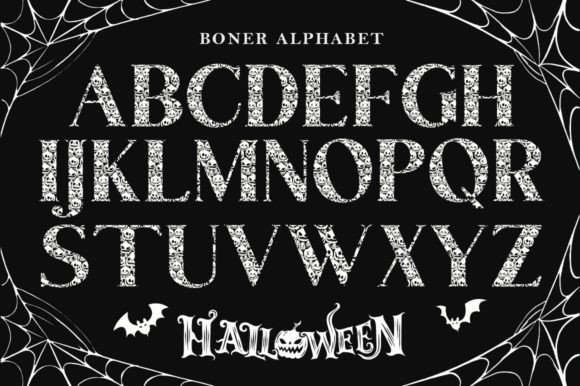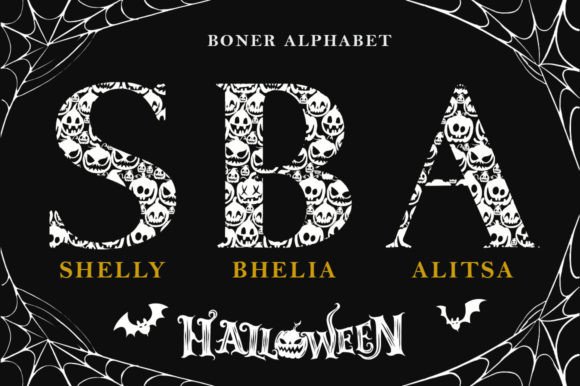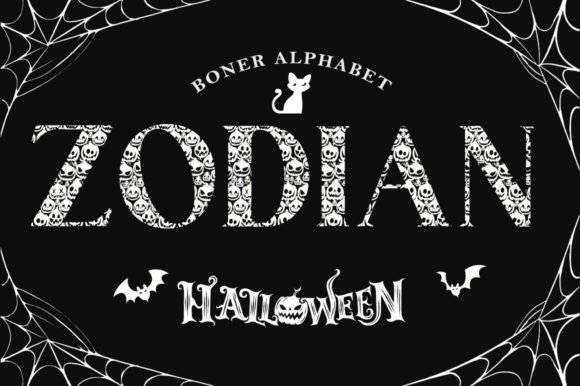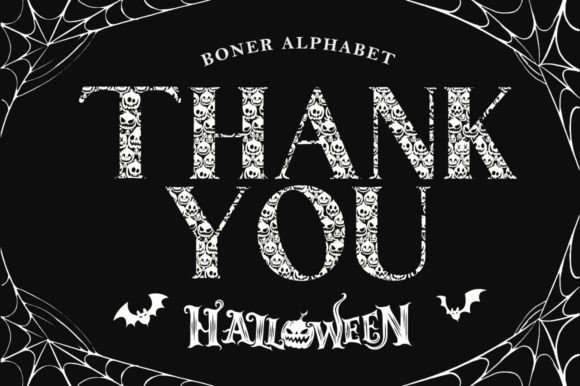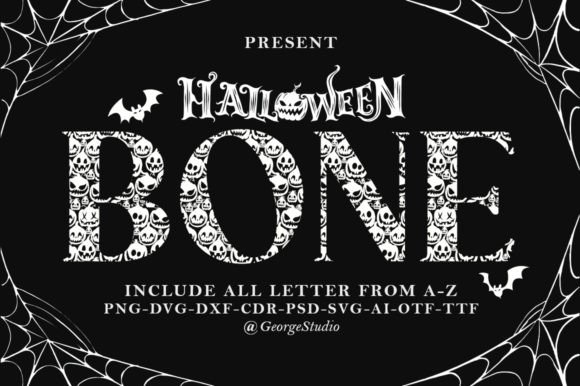
Bone Font: The Spooky Monogram Decorative Font for Creative Minds
Bone Font is a spooky monogram decorative font that has been masterfully designed to become a true favorite among designers and crafters. With its unique and eerie style, this font has the potential to bring each of your creative ideas to the highest level. In this article, we’ll dive into the world of Bone Font, exploring its features, uses, and benefits for creative professionals.
What is Bone Font?
Bone Font is a decorative font that features a spooky monogram style, perfect for creating eerie and eye-catching designs. The font has been carefully crafted to provide a distinctive and stylish look that’s sure to grab attention. Its monogram style makes it ideal for use in a variety of projects, from logos and branding to invitations and crafts.
Key Features of Bone Font
- Unique and Eerie Style: Bone Font boasts a one-of-a-kind design that’s perfect for creating spooky and eye-catching designs.
- Monogram Style: The font features a beautiful monogram style that’s ideal for use in logos, branding, and other creative projects.
- High-Quality Design: Bone Font has been masterfully designed to provide a high-quality look that’s sure to impress.
- Versatile: This font can be used in a variety of projects, from digital designs to print materials.
Uses of Bone Font
Bone Font is a versatile font that can be used in a wide range of creative projects. Here are some ideas to get you started:
- Logos and Branding: Use Bone Font to create a unique and memorable logo for your business or brand.
- Invitations and Events: Add a touch of spookiness to your invitations and events with Bone Font.
- Crafts and DIY Projects: Use Bone Font to add a personal touch to your crafts and DIY projects, such as signs, banners, and decorations.
- Digital Designs: Use Bone Font in your digital designs, such as social media graphics, blog posts, and website headers.
Benefits of Using Bone Font
So why choose Bone Font for your creative projects? Here are some benefits of using this amazing font:
- Stand Out from the Crowd: Bone Font’s unique and eerie style is sure to grab attention and set your designs apart from the crowd.
- Save Time and Effort: With Bone Font, you can create professional-looking designs in no time, saving you time and effort.
- Perfect for Seasonal Projects: Bone Font is perfect for seasonal projects, such as Halloween-themed designs, and can add a touch of spookiness to your creations.
Tips for Using Bone Font
Here are some tips for using Bone Font to get the most out of this amazing font:
- Experiment with Different Sizes and Colors: Try out different sizes and colors to see what works best for your design.
- Pair with Other Fonts: Pair Bone Font with other fonts to create a unique and eye-catching combination.
- Use in Combination with Images: Use Bone Font in combination with images to create a visually appealing design.
Bone Font is a spooky monogram decorative font that’s perfect for designers and crafters looking to add a touch of eeriness to their creative projects. With its unique and high-quality design, this font is sure to become a true favorite. Whether you’re creating logos, invitations, crafts, or digital designs, Bone Font is a versatile font that can help you bring your creative ideas to the highest level.